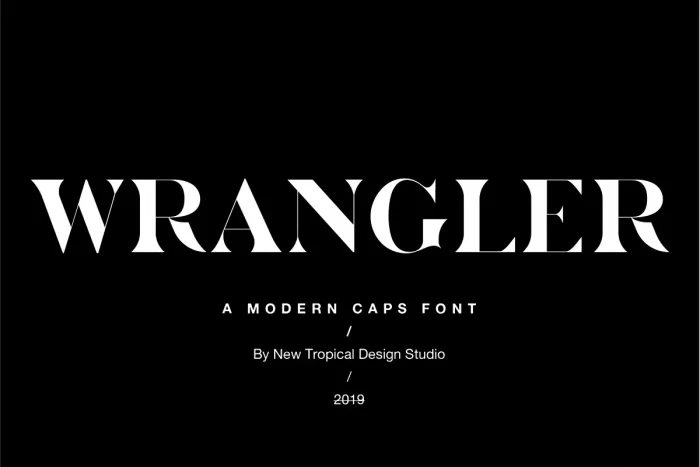
Wrangler Font
Wrangler is a bold yet elegant, sans serif caps font. Great for word-mark logos or fashion mastheads. It is both feminine and masculine with sharp angles and soft curves.
It’s a versatile typeface that’s full of sleek curves and one you’ll use to time and again. It is suitable for use in a variety of design projects, such as logos, titles, paragraphs, and digital displays, with its ability to give a fresh and elegant look.